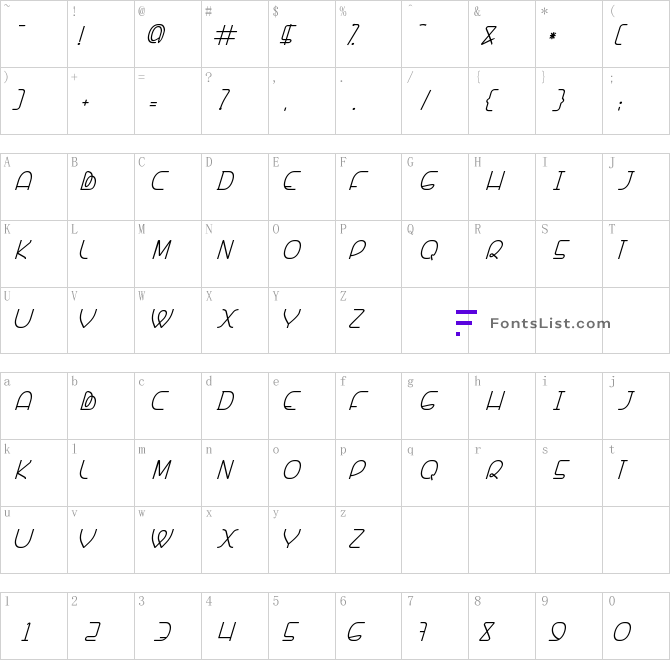
- Font Name:Banquetier-Italic
Banquetier-Italic.ttf is a very beautiful artistic font, Banquetier-Italic.ttf is widely used in the design and printing of various books and pictures,Banquetier-Italic.ttf has a strong visual impact,Banquetier-Italic.ttf is a commonly used font in newspapers, magazines and books, and is used in posters, e-commerce Poster design, store design, logo design, font design and other fields.Banquetier-Italic.